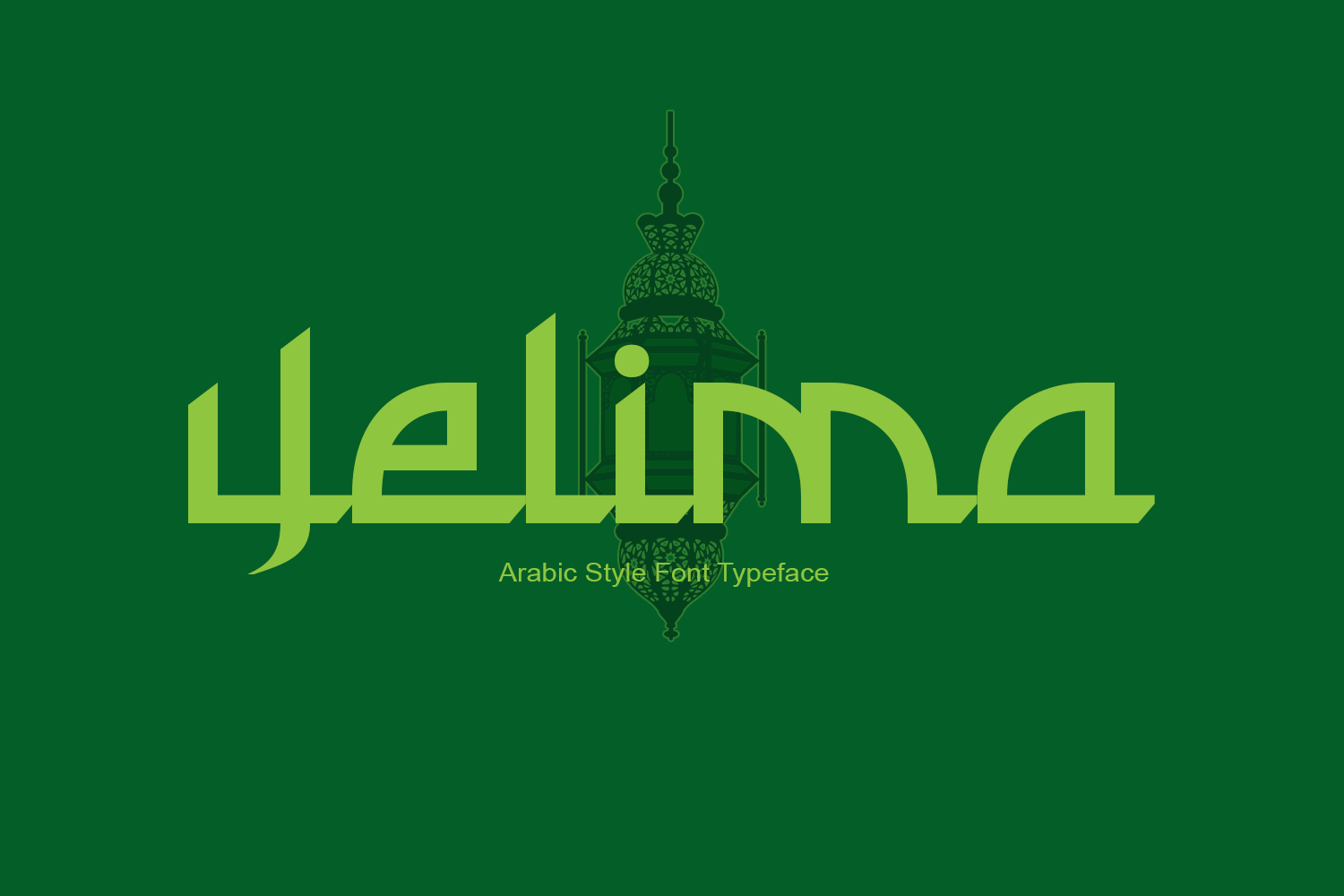
Yelima - Arabic Style Font
A decorative fantasy display font inspired by Islamic architecture and Middle Eastern ornamentation, featuring geometric letterforms, pointed terminals, and a mystical royal aesthetic ideal for titles, branding, games, and cultural designs.
This font is a decorative fantasy display typeface inspired by Middle Eastern, Persian, Arabic, and Islamic architectural aesthetics. The letterforms feature angular geometric construction, pointed terminals, and ornamental cuts that evoke mosque domes, minarets, and traditional calligraphic influences while remaining fully Latin-based.